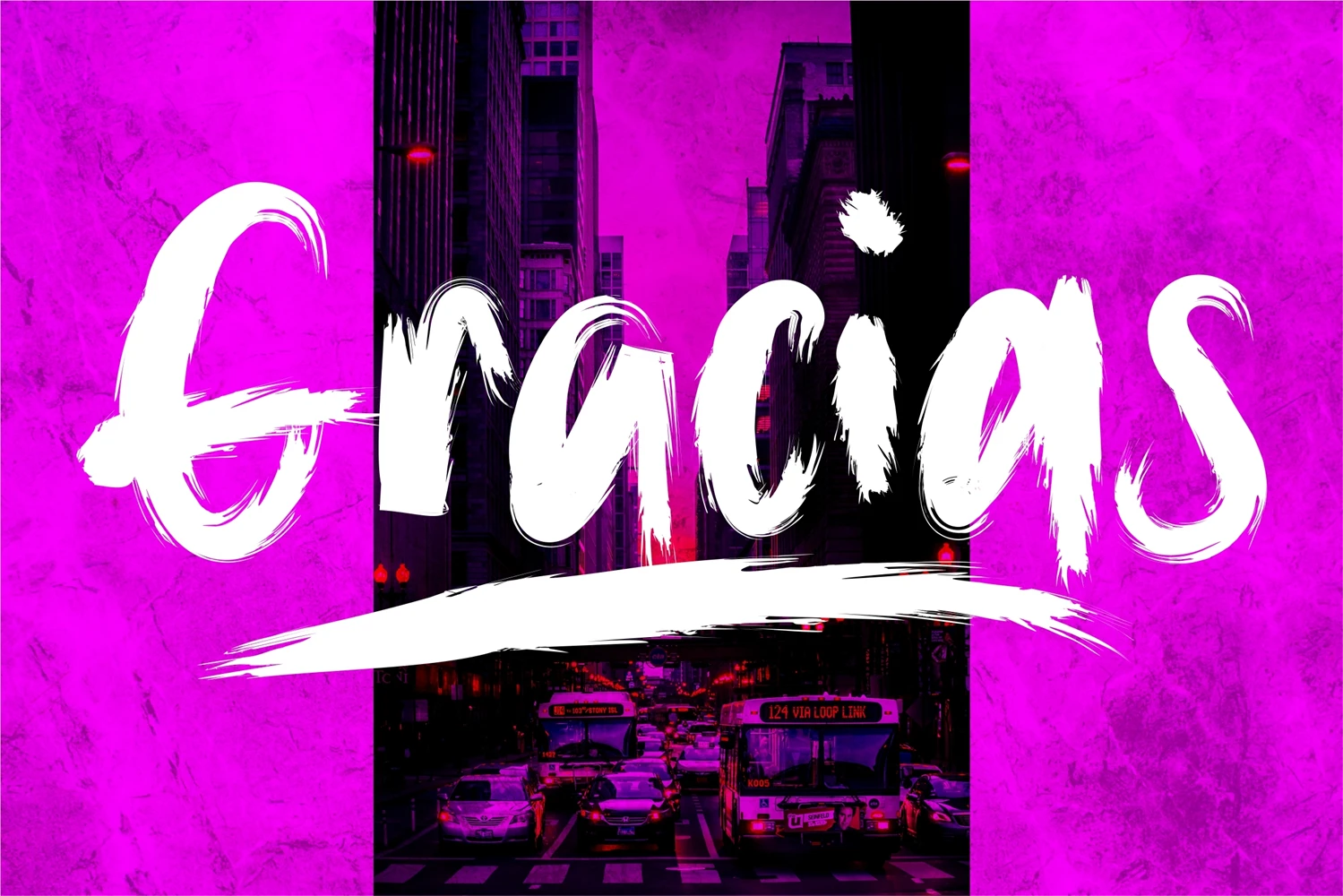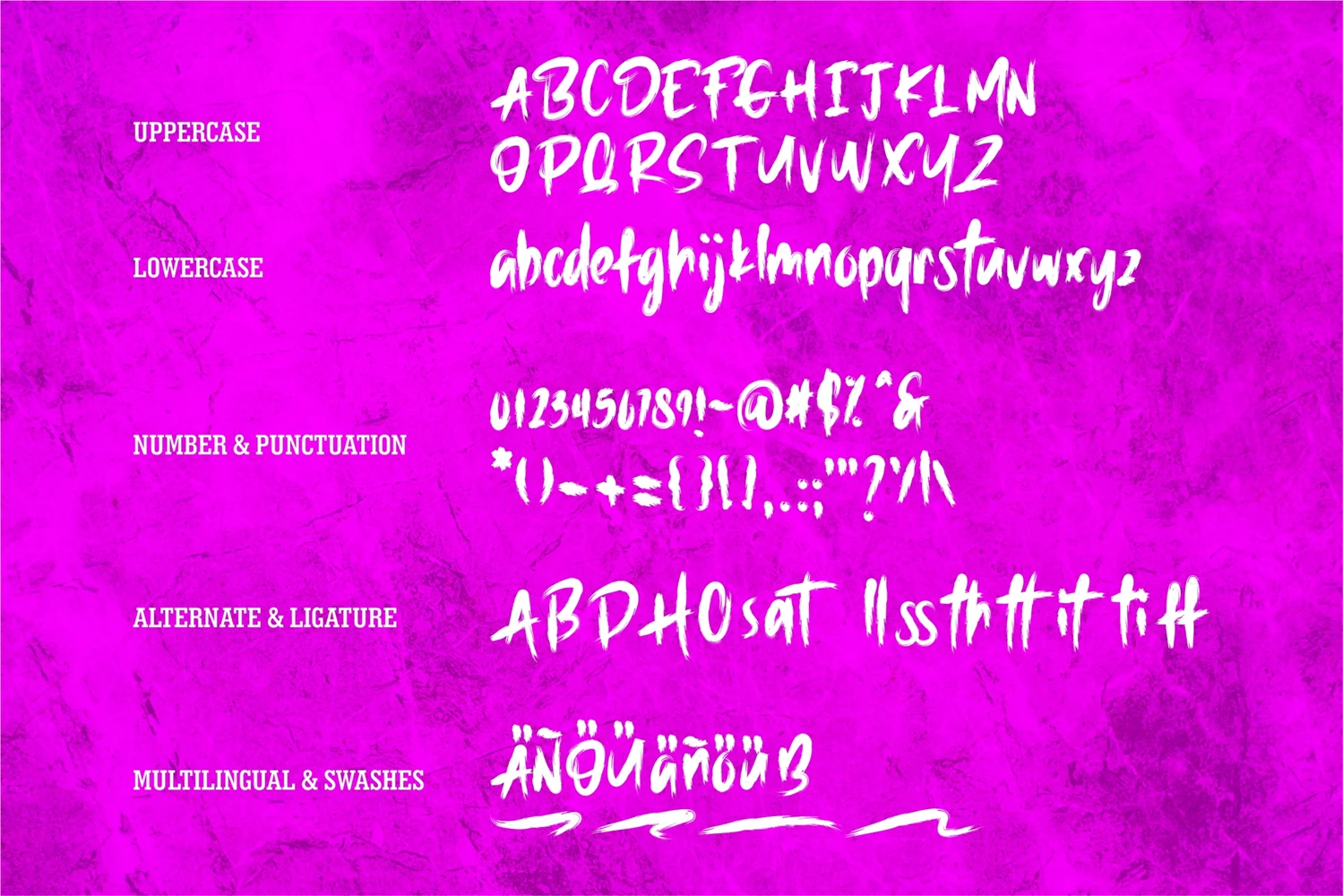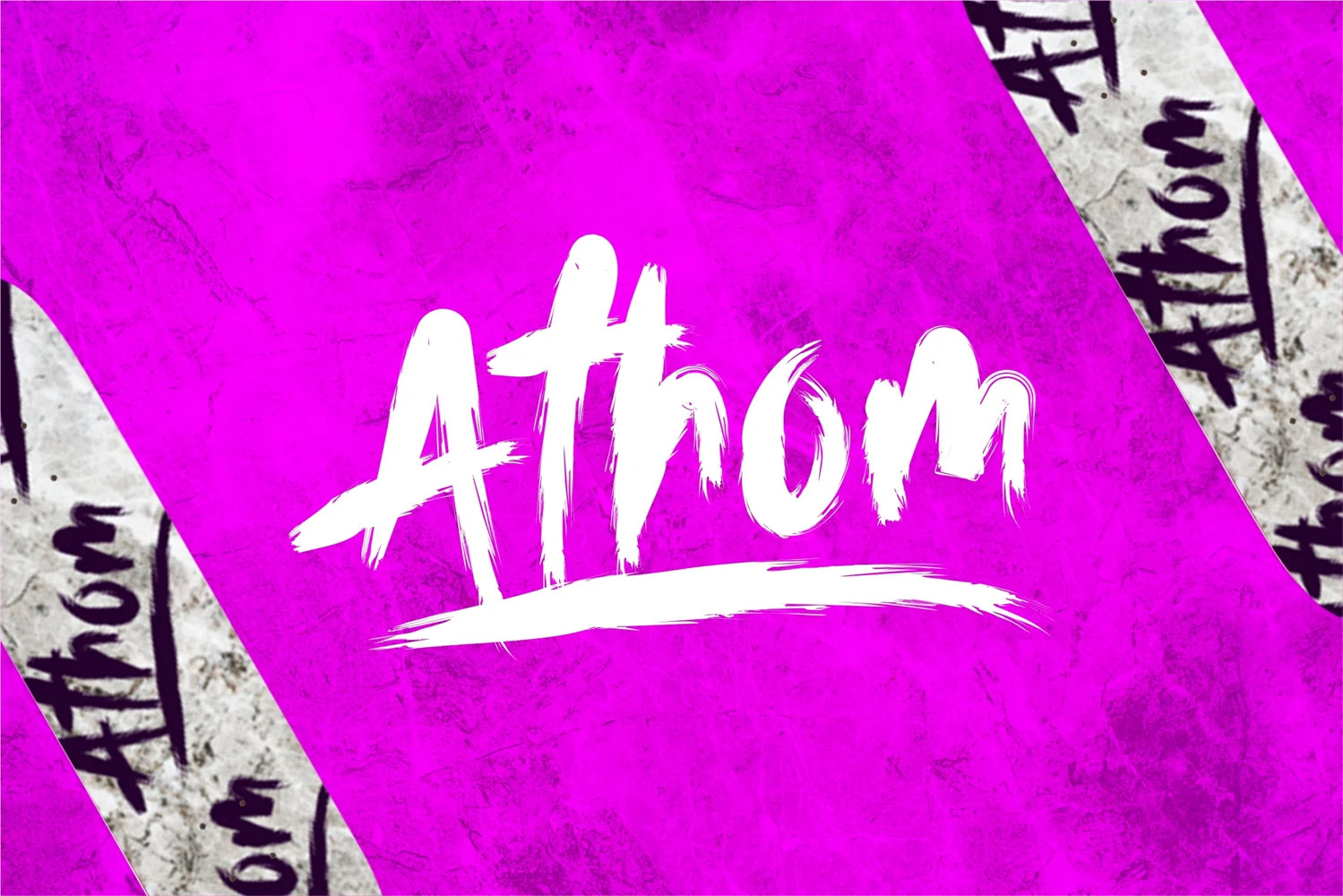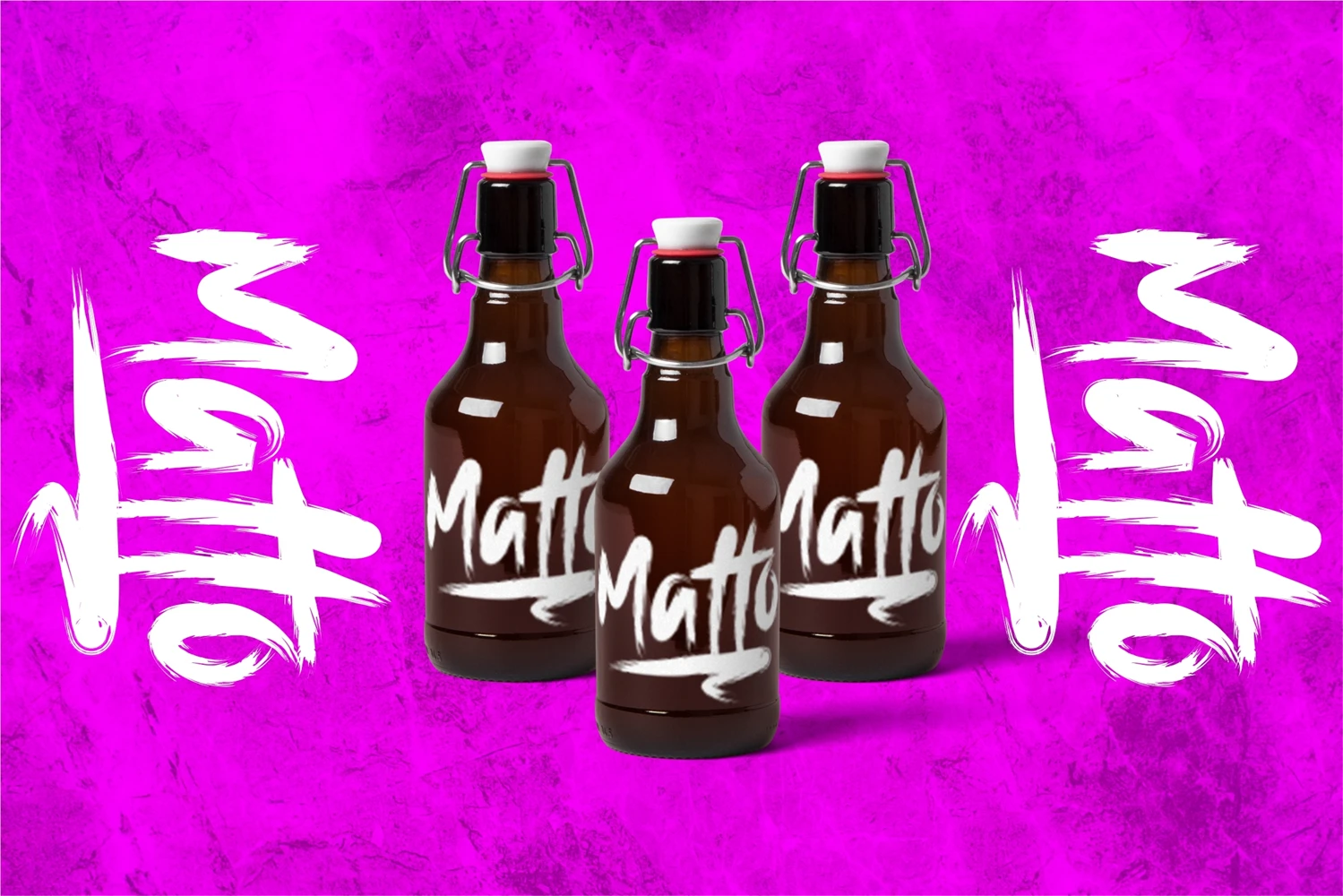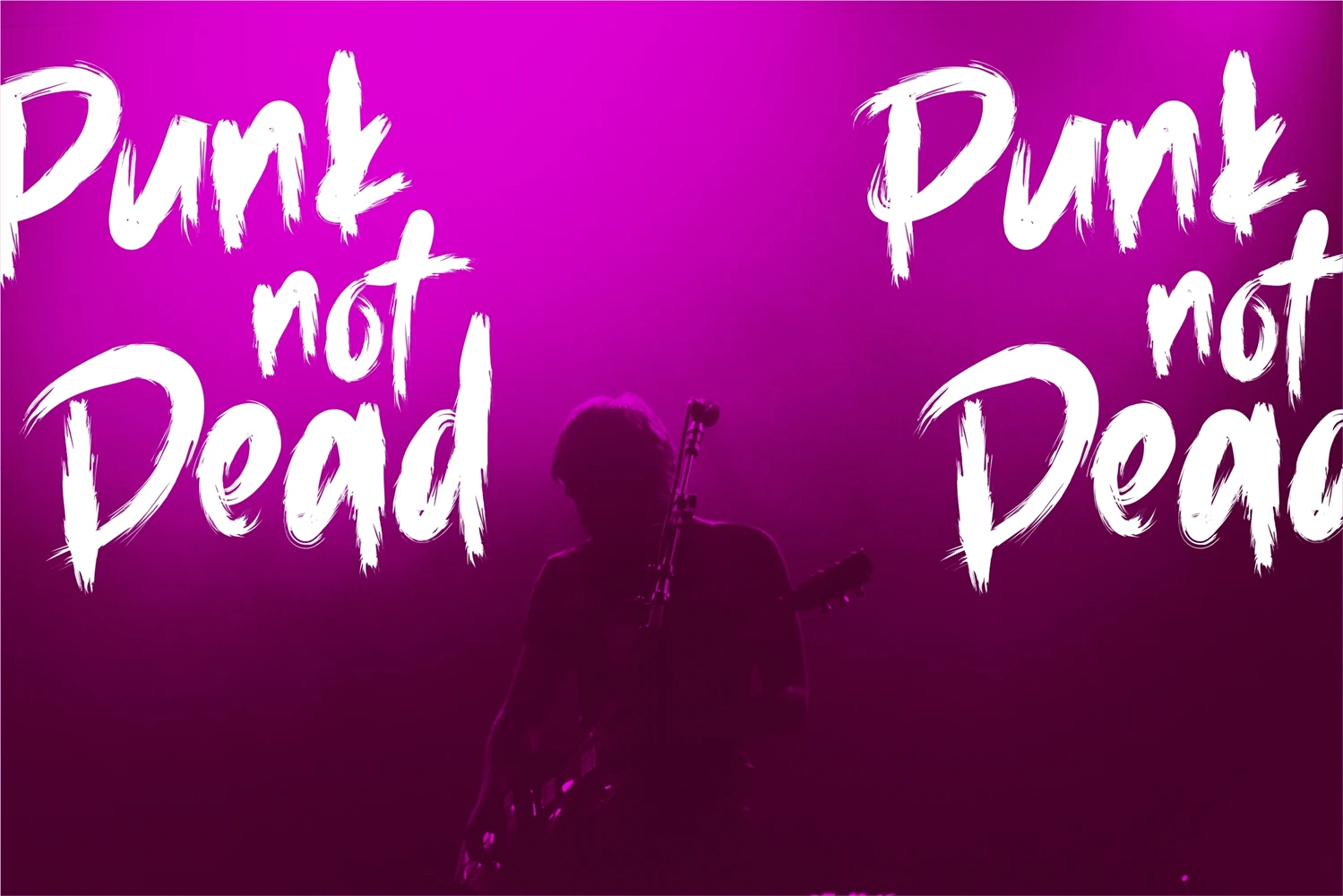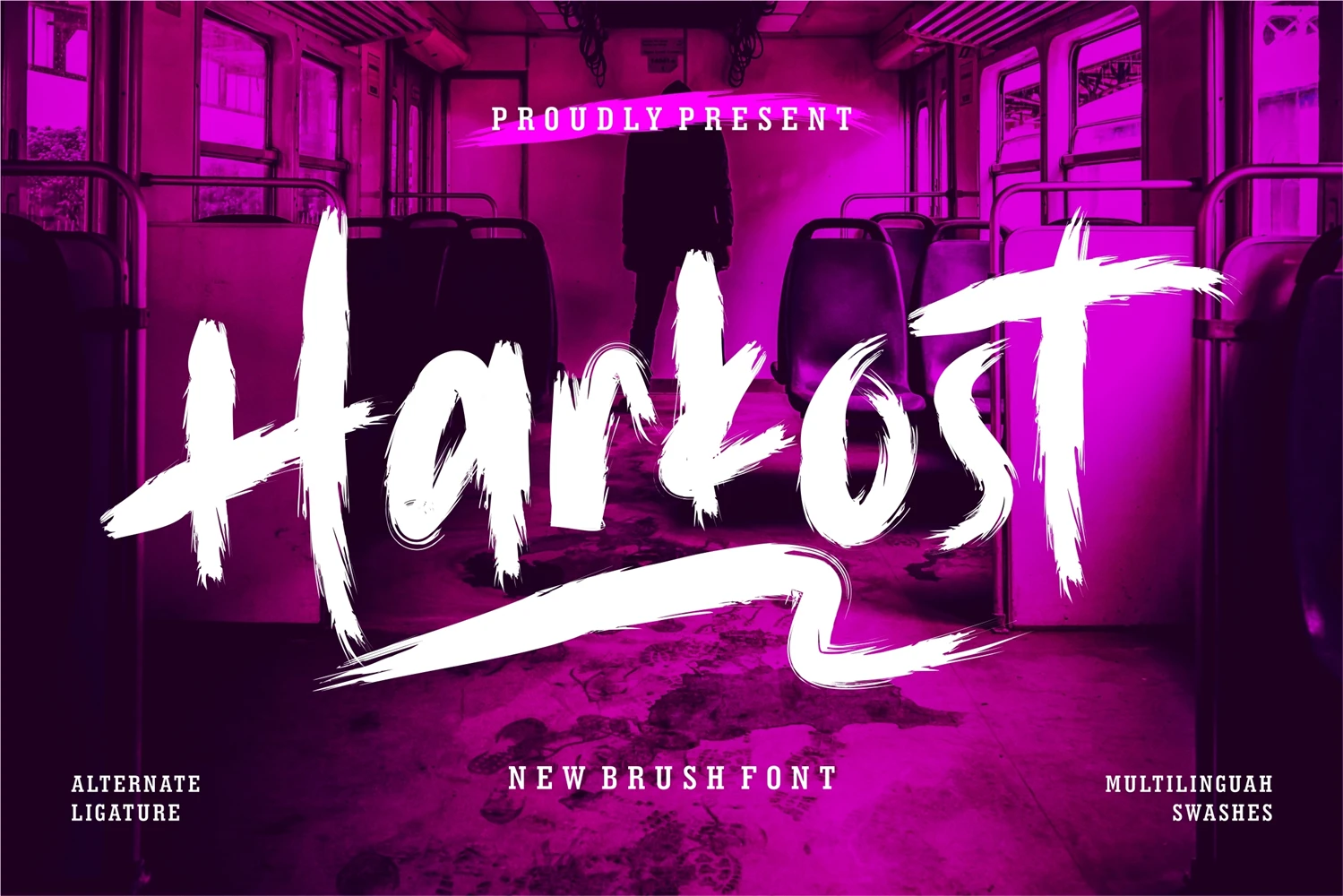
**Harkost - Brush Font**
is a sophisticated and timeless script font that exudes a sense of grace and refinement. Its delicate yet confident strokes make it an ideal choice for projects that demand an air of sophistication, such as invitations, wedding materials, and upscale branding.